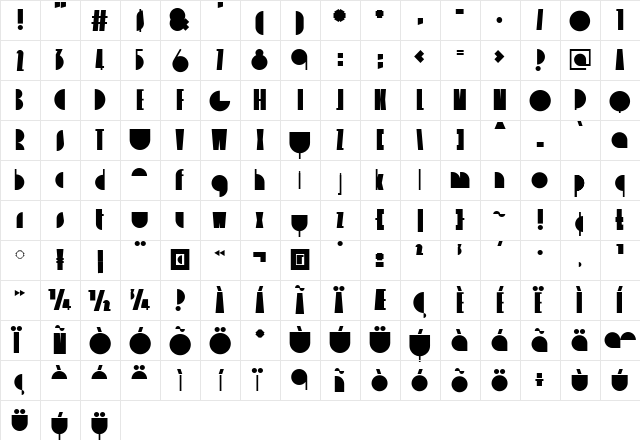
delizioso Regular
Design Context for delizioso Typeface
delizioso is a composed and adaptable typeface that performs quietly and consistently across a wide range of design contexts.